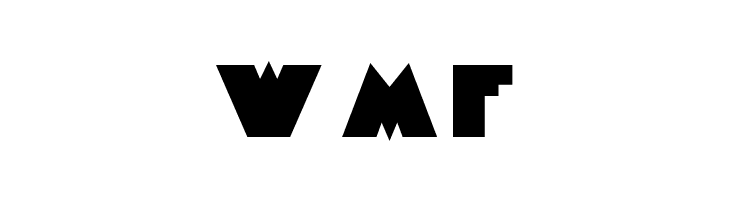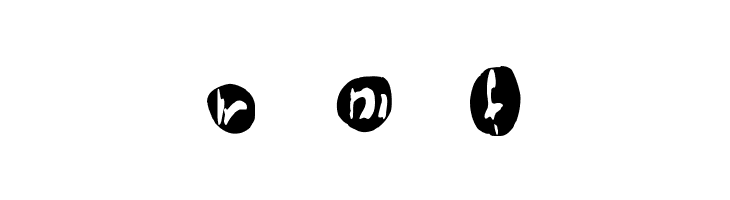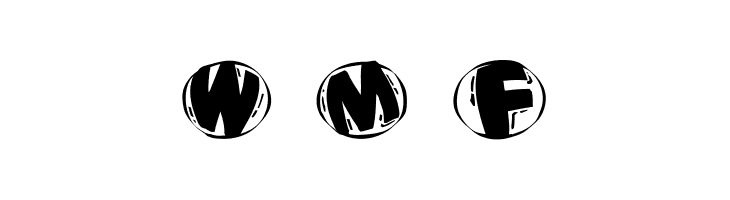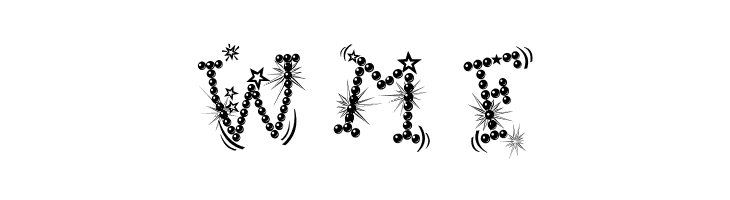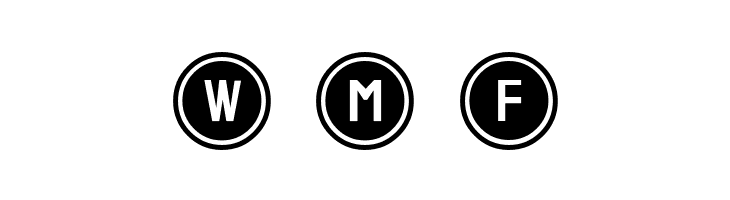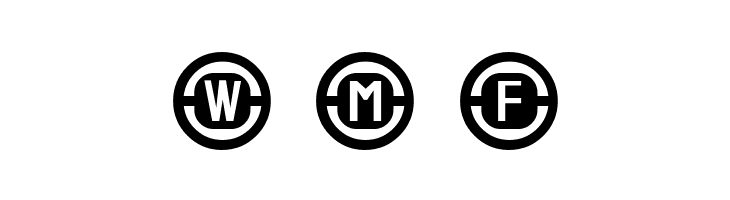
A playful, bubble-like font with interconnected circular designs for a whimsical look.
A bold, geometric font with sharp angles and circular elements, perfect for impactful designs.
A bold, vintage-style font with theatrical and quirky embellishments.
An abstract, hand-drawn font with irregular, brush-like letterforms enclosed in circular shapes.
A bold, woodcut-style font with circular enclosures and artistic flair.
A bold, decorative font with a woodcut effect and circular enclosures.
A hand-drawn, woodcut-style decorative font with circular outlines.
A playful, hand-drawn font with characters enclosed in circles, offering a whimsical and bold style.
A playful, italicized font with characters enclosed in circles, offering a bold and whimsical style.
A whimsical and decorative font with star-like bursts and circular embellishments.
A decorative, mechanical-themed font with intricate circular and linear patterns.
A bold, decorative font with intricate circular patterns and a mechanical feel.
A playful, decorative font with starburst and circular motifs.
A playful decorative font with characters and symbols enclosed in dotted circles.
A modern, decorative font featuring symbols and encircled sans-serif letters.
A playful, bold font with characters encased in circles, perfect for fun and engaging designs.
A bold, futuristic font with italicized characters enclosed in circles.
A bold, italicized font with a futuristic and dynamic style, featuring uppercase letters in circles.
A bold, geometric font with characters in circular backgrounds, offering a modern and futuristic look.
A bold, geometric font with characters enclosed in circles, offering a modern and decorative style.
Fingerprint-inspired decorative font with circular, organic shapes.
A vintage typewriter-inspired font with characters encased in circles, offering a bold and classic look.
A decorative serif font with characters enclosed in circular, typewriter-style keys.
A bold, geometric font with unique circular elements and a modern aesthetic.